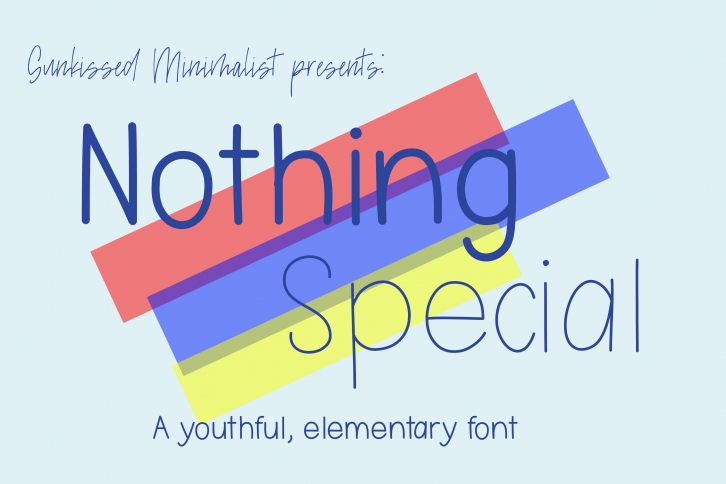
Nothing Special is a beautiful font that was designed by Sunkissed Minimalist Co. It's a great choice for designers and creatives who need such a font. It was released on June 7, 2019 and the file size is 5.63 MB. Nothing Special may give a more youthful, expressive and casual look to your project. It is a very beautiful, refined, elegant, and high-quality font.